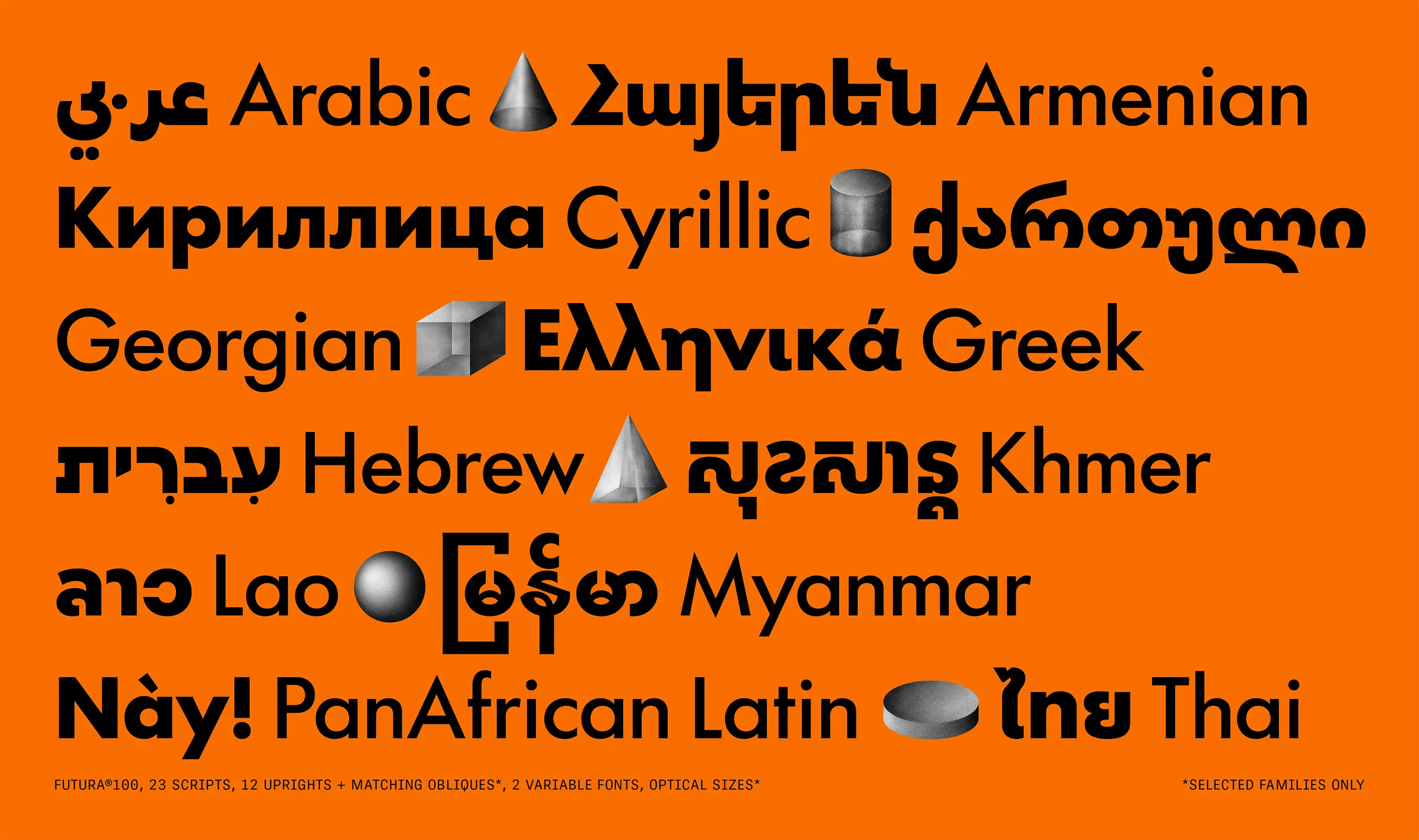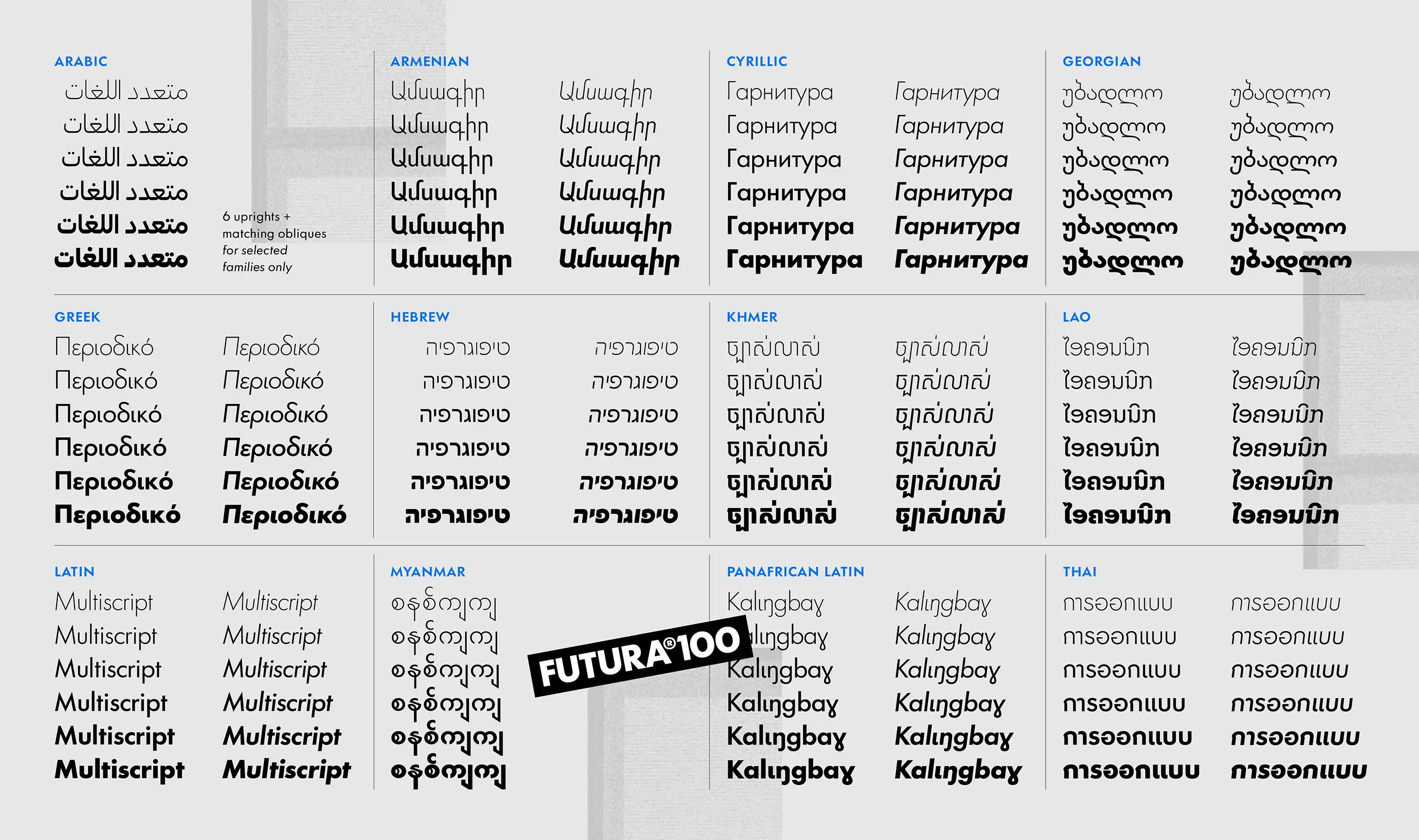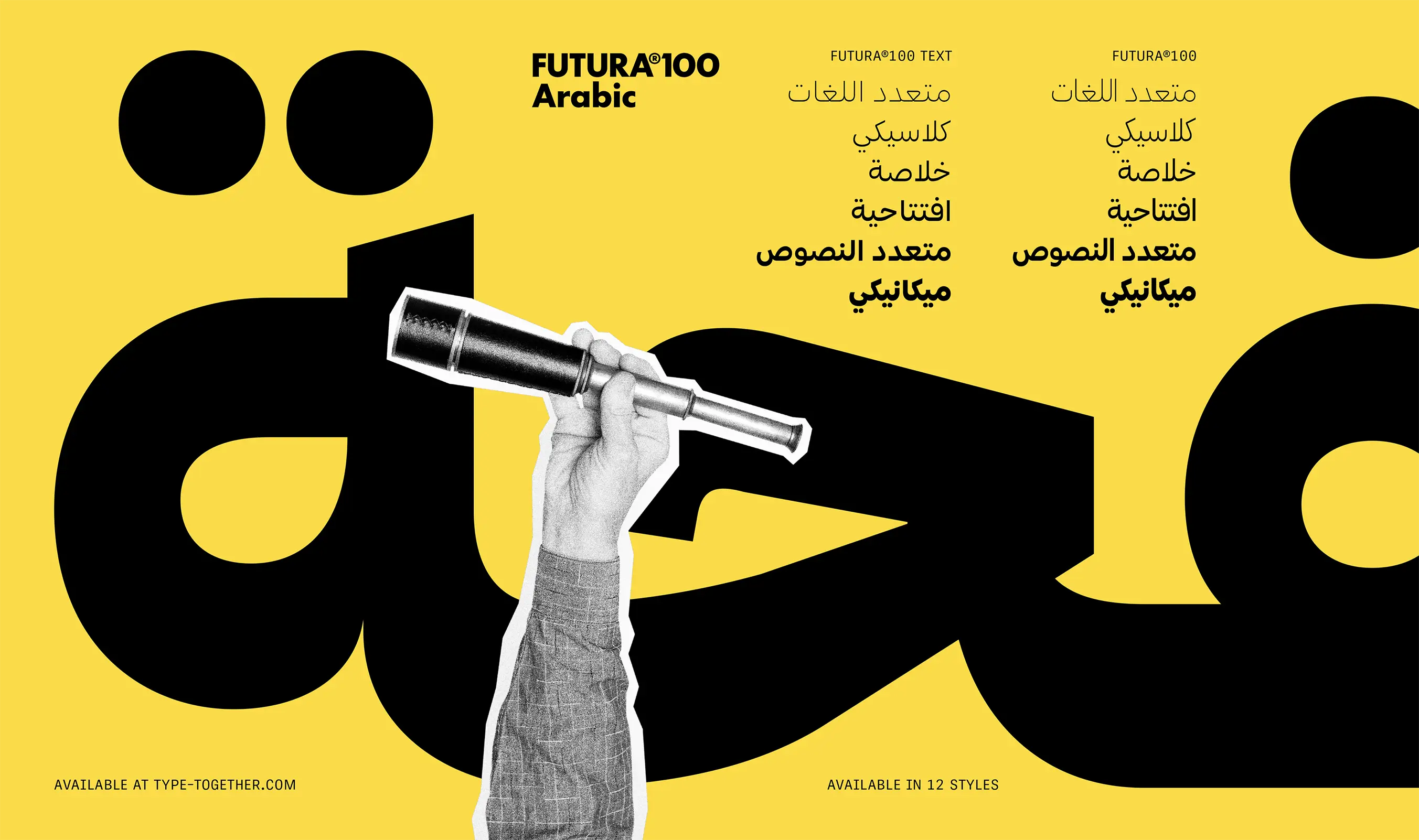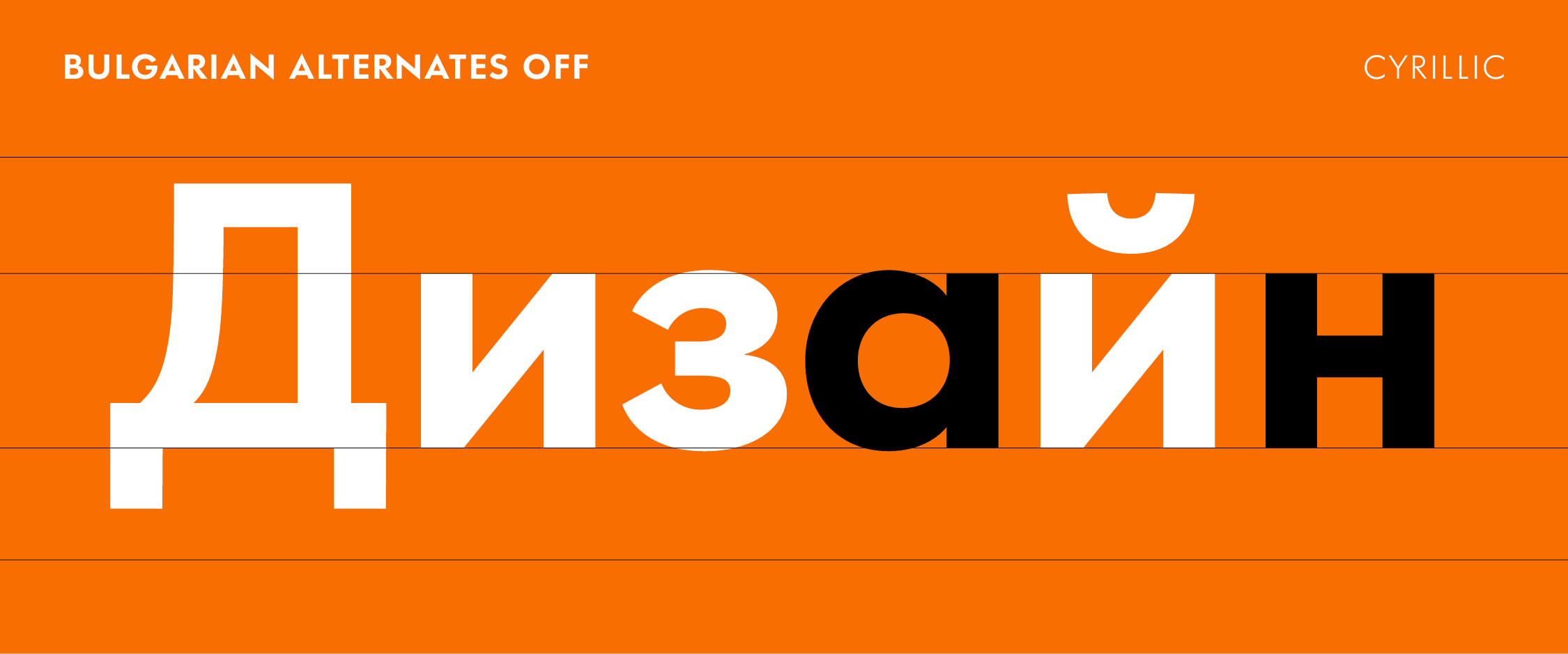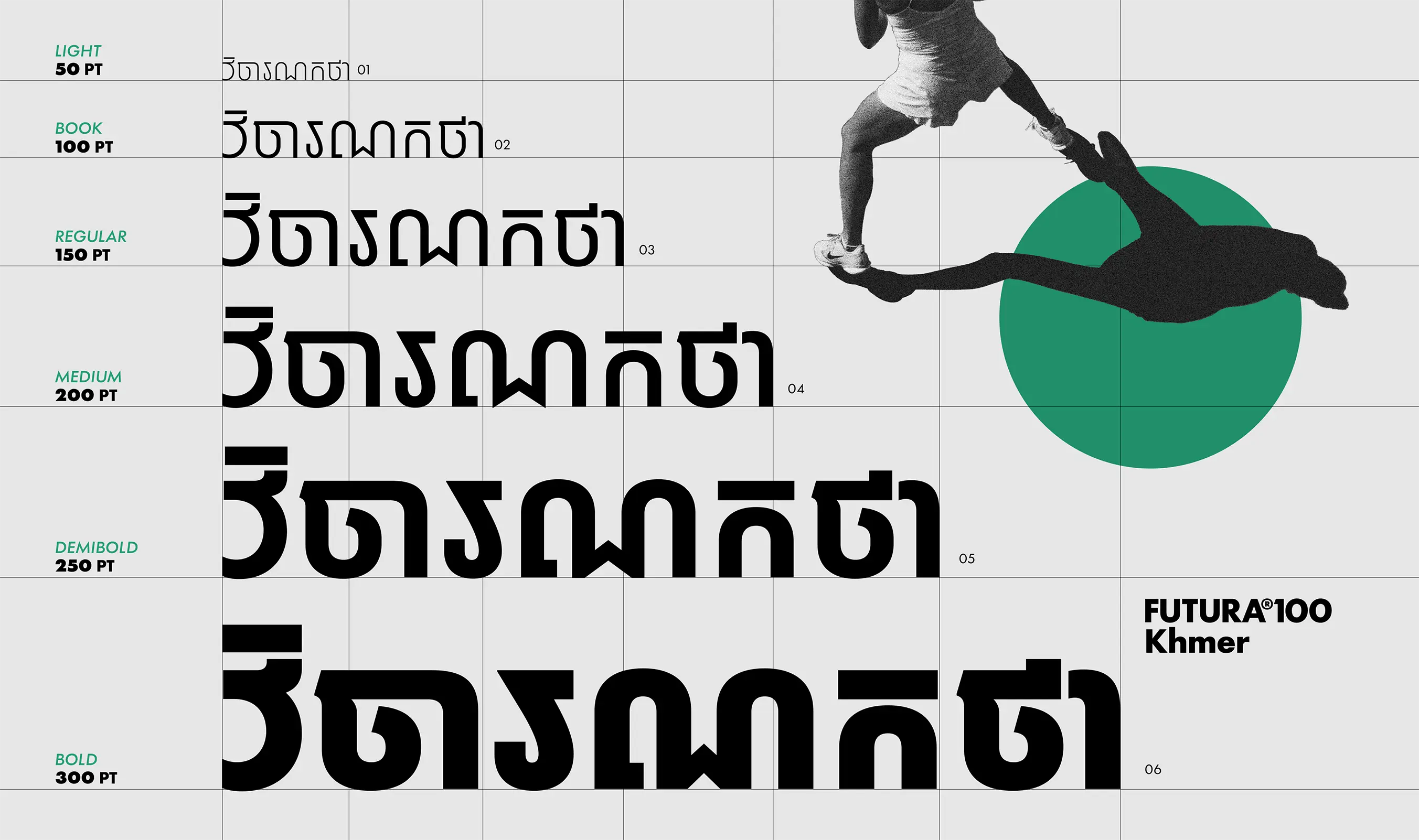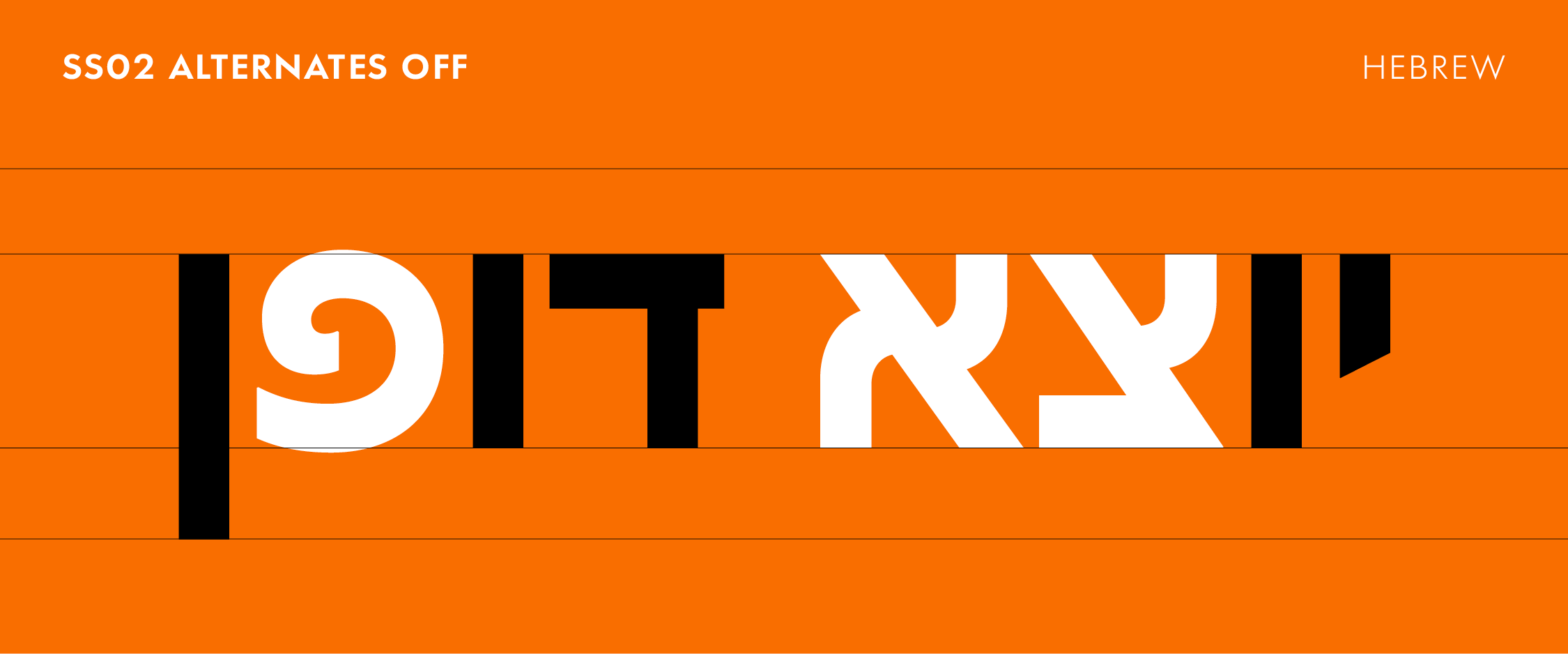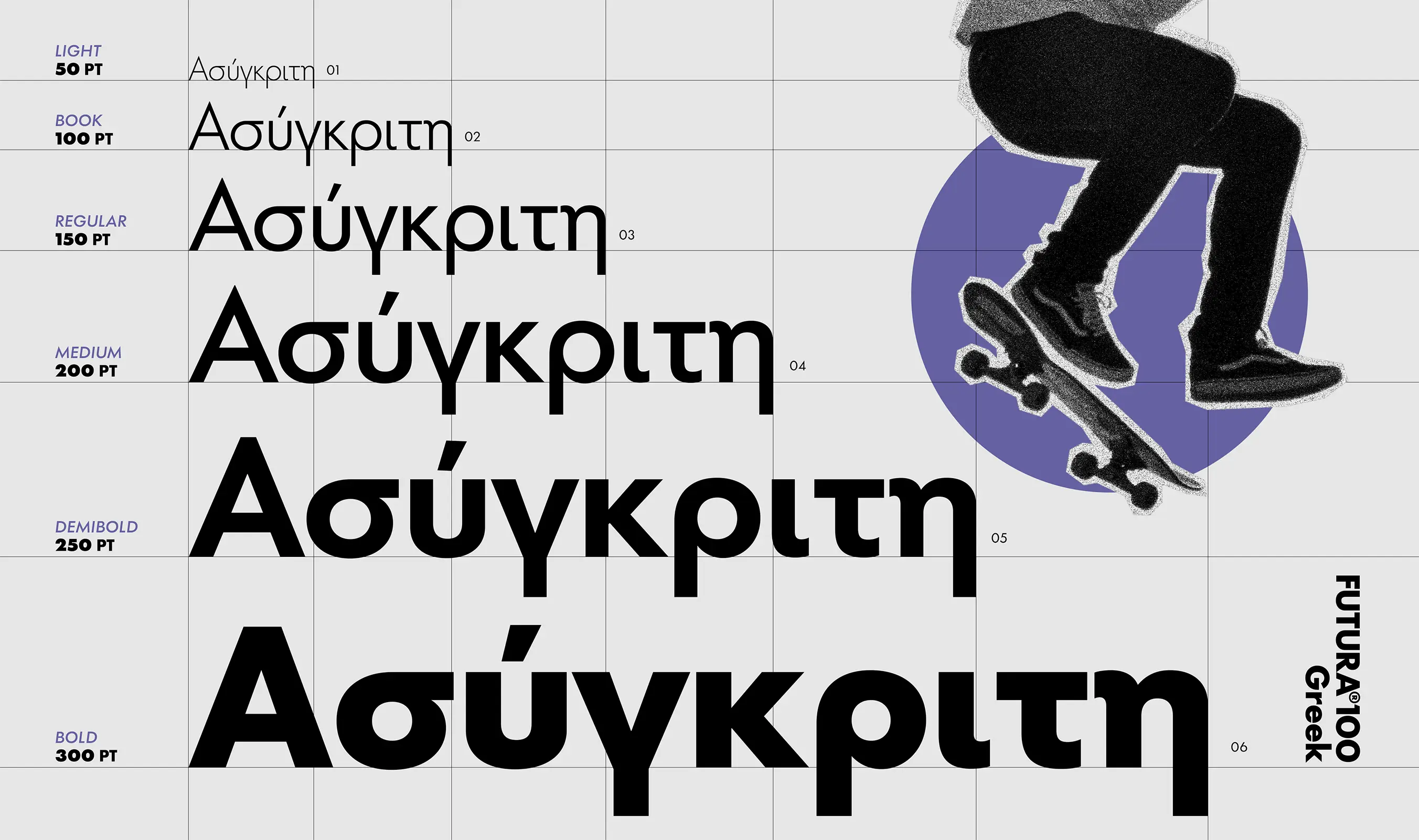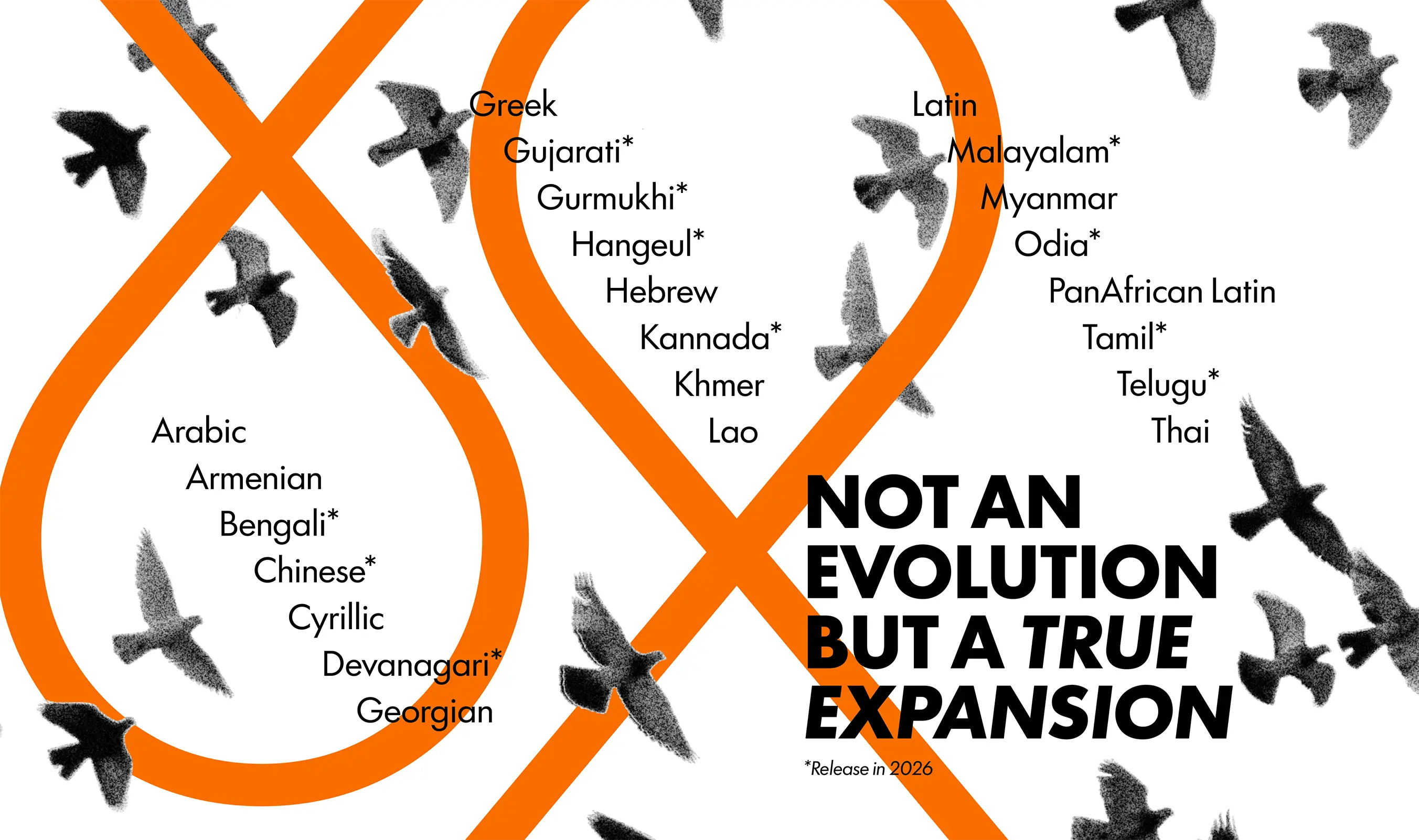
New release: Futura®100
As we near the one hundredth anniversary of the original design, we are proud to announce the release of Futura®100 — a typography icon, reimagined for global branding.
We have a huge announcement today that has been years in the making. In partnership with Bauer Types, TypeTogether has brought together the widest global talents to release Futura®100, the epitome of minimalist geometric typefaces for the world. We are proud to introduce the first half of the full multiscript family!
Futura®100 is currently comprised of 12 scripts, each with six upright styles and matching obliques (as applicable), variable fonts, and an optical size option that increases spacing and adapts vertical proportions to improve readability in text sizes. Current scripts include: Armenian, Cyrillic, Georgian, Greek, Hebrew, Khmer, Lao, Latin, PanAfrican Latin, Thai (these ten with obliques), Arabic, and Myanmar. In 2026 we will release 11 additional scripts which will include support for major Indic scripts as well as Simplified Chinese and Hangeul, covering more than 90% of the world’s population in total. With such extensive coverage, Futura®100 is a great fit for agencies and brands with global reach, multinational commitments, or for those who have used the Latin version in the past but would benefit from using it in their own script.
Our team has been diligently working to bring this family to as much of the global design community as possible while honouring Renner’s intention. So after two years of first-hand archival research, design, and testing, Futura®100 is the initial interpretation of his original idea worldwide, rather than a remake limited by specific region or purpose. All the desired typographic niceties are included: case-sensitive punctuation, small caps, five sets of figures for setting tables or text, geometric alternates, arrows, ligatures, script-specific alternates, and more.
Futura®100 full credits
Lead design and concept
Veronika Burian
José Scaglione
Futura® design
Paul Renner
Type design
Azza Alameddine (Arabic)
Kostas Bartsokas (Greek)
Yorlmar Campos (Latin, PanAfrican Latin)
Suppakit Chalermlarp (Lao)
Vera Evstafieva (Cyrillic)
Tom Grace (Latin, Hebrew)
Gor Jihanian (Armenian)
Ben Mitchell (Myanmar)
Ana Sanikidze (Georgian)
Smich Smanloh (Design director: Thai, Lao, Khmer)
Sovichet Tep (Khmer, Myanmar)
Knaz Uiyamathiti (Thai)
Anuthin Wongsunkakon (Design director: Thai, Lao, Khmer)
Technical advisor
Simon Cozens
Engineering
Joancarles Casasín
Kerning
Radek Sidun (Latin)
Quality assurance
Viviana Monsalve
Graphic design
Elena Veguillas (art direction)
Rabab Charafeddine
Felicia Priscillya
Motion design
Cecilia Brarda
Copywriting
Joshua Farmer
Social media manager & video editor
Doug Arellanes
Consultancy
Khajak Apelian (Armenian)
Shani Avni (Hebrew)
Gerry Leonidas (Greek)
Ben Mitchell (Southeast Asian scripts)
Krista Radoeva (Cyrillic)
Akaki Razmadze (Georgian)
Mamoun Sakkal (Arabic)
Donny Truong (Vietnamese support)
Taurai Valerie Mtake (PanAfrican Latin)